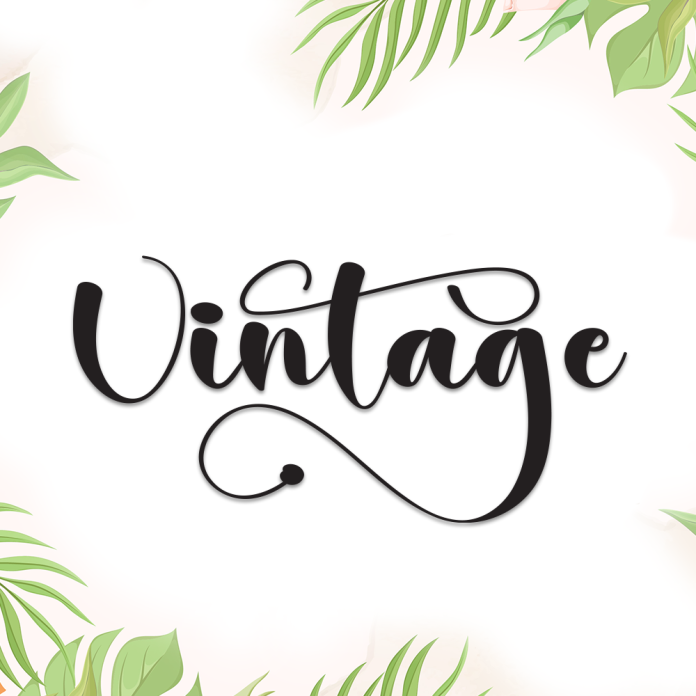
Vintage is an elegant handwriting font that brings a nostalgic charm and timeless beauty to your designs. Inspired by handwritten letters and old journals, its graceful strokes and subtle texture make it perfect for projects that require a touch of history and sophistication.
Ideal for wedding invitations, branding, packaging, quotes, and editorial design, Vintage offers a handwritten feel that’s both refined and warm.
Elegant and nostalgic handwritten style
Smooth, flowing letterforms with a classic touch
Perfect for weddings, logos, stationery, and vintage-themed designs
Write your story with grace and elegance using Vintage, the handwriting font that never goes out of style.